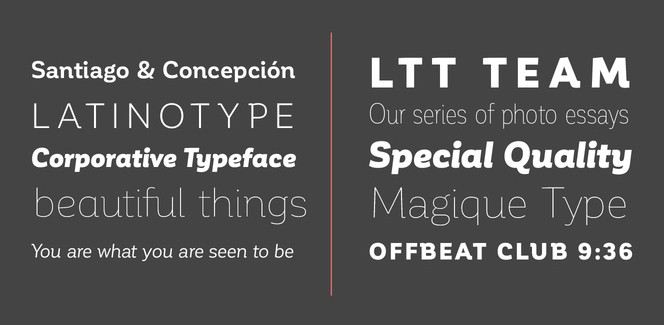
Corporative font
Corporative is a modern geometric semi serif font family provided by Latinotype. If we are to describe it in two words, these would definitely be diversity and versatility. This incredibly rich font family comes in the astonishing 64 fonts! There are two main families Corportaive and Corporative Condensed – each developed in 8 weights – from Hair thru Medium to Black, featuring classic character style and each of them coming with corresponding true Italics. Additionally Latinotype have decided to develop this whole configuration with alternative characters dominated by more prominent calligraphic feeling and humanist look than the traditional set. In the alternates you will find smooth and elegant shapes, less geometrical forms and more elements from natural hand writing – all these even more visible in the Alternate Italics. Also, there is something more as this typeface covers none less than 128 languages. Quite a choice, isn’t it?!
Overall, Corporate’s features and appearance make it more suitable for use in larger sizes. This typeface is your optimal choice for projects like creation of logos, branding and corporate identity, trademarks, industrial design, etc. However, it can still work great in smaller text sizes also due to its condensed nature and high legibility.
There is one more reason why Corporative font family is so special. Perhaps the people in Latinotype believe that 10 eyes see better than two. So they present us with their first font that is not designed by one but by 5 designers or Latinotype team. More precisely, Corporative is created by Javier Quintana (author of Berenjena and Modernica typefaces) and Cesar Araya with Latinotype founders Luciano Vergara, Miguel Hernandez and Daniel Hernandez being supervisors of their work. Judging by the result, we can say that this formula has worked great!
Designers: Javier Quintana, Cesar Araya, Luciano Vergara, Miguel Hernandez, Daniel Hernandez
Publisher: Latinotype